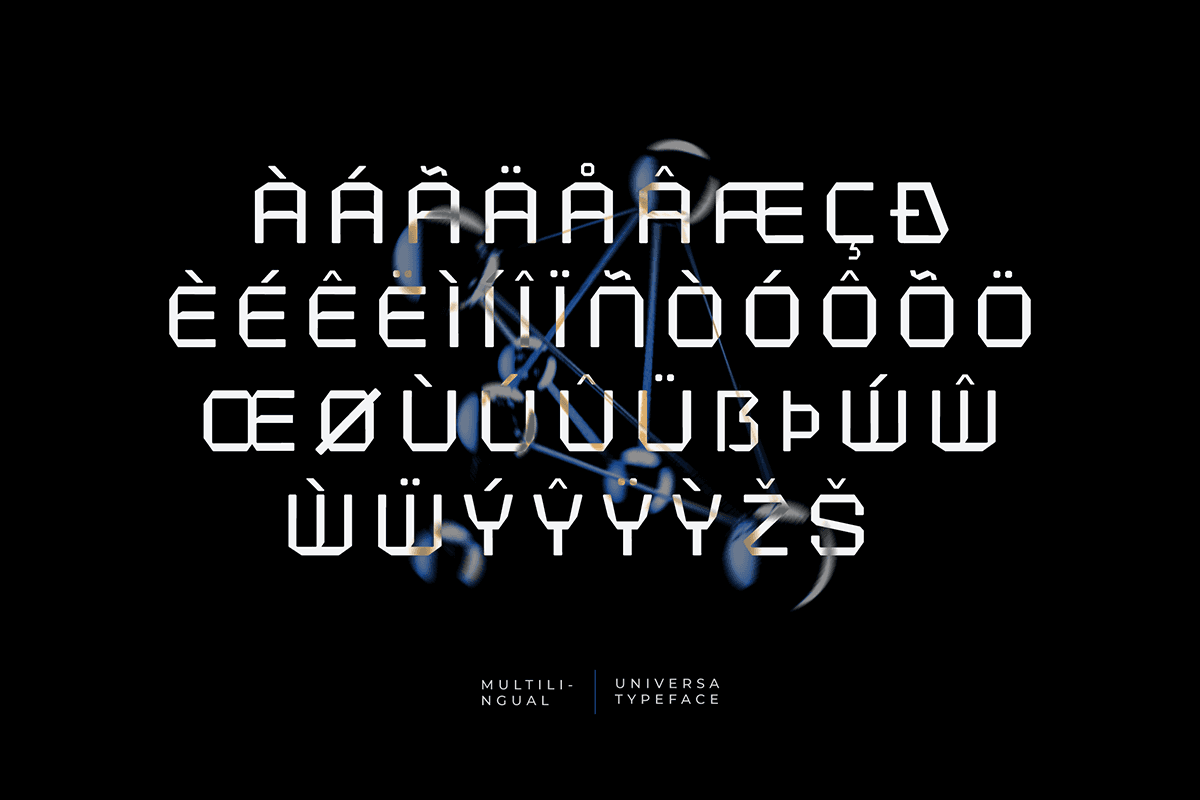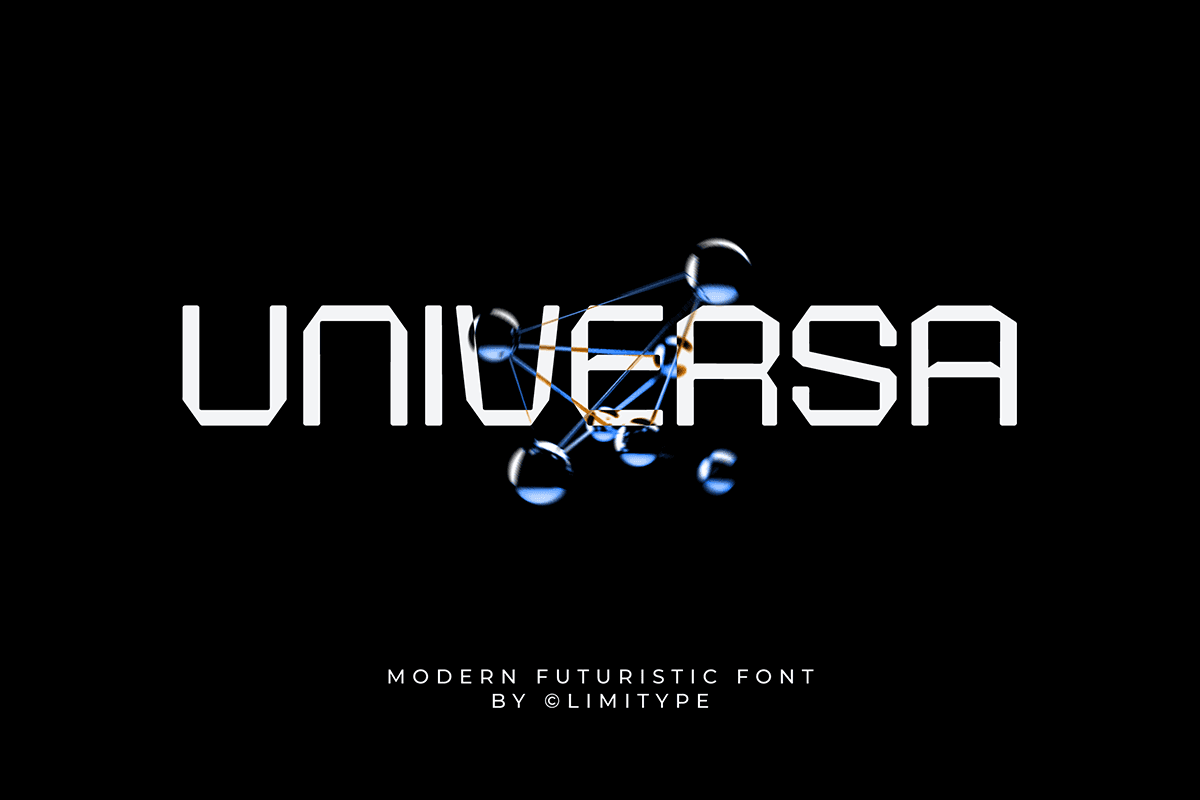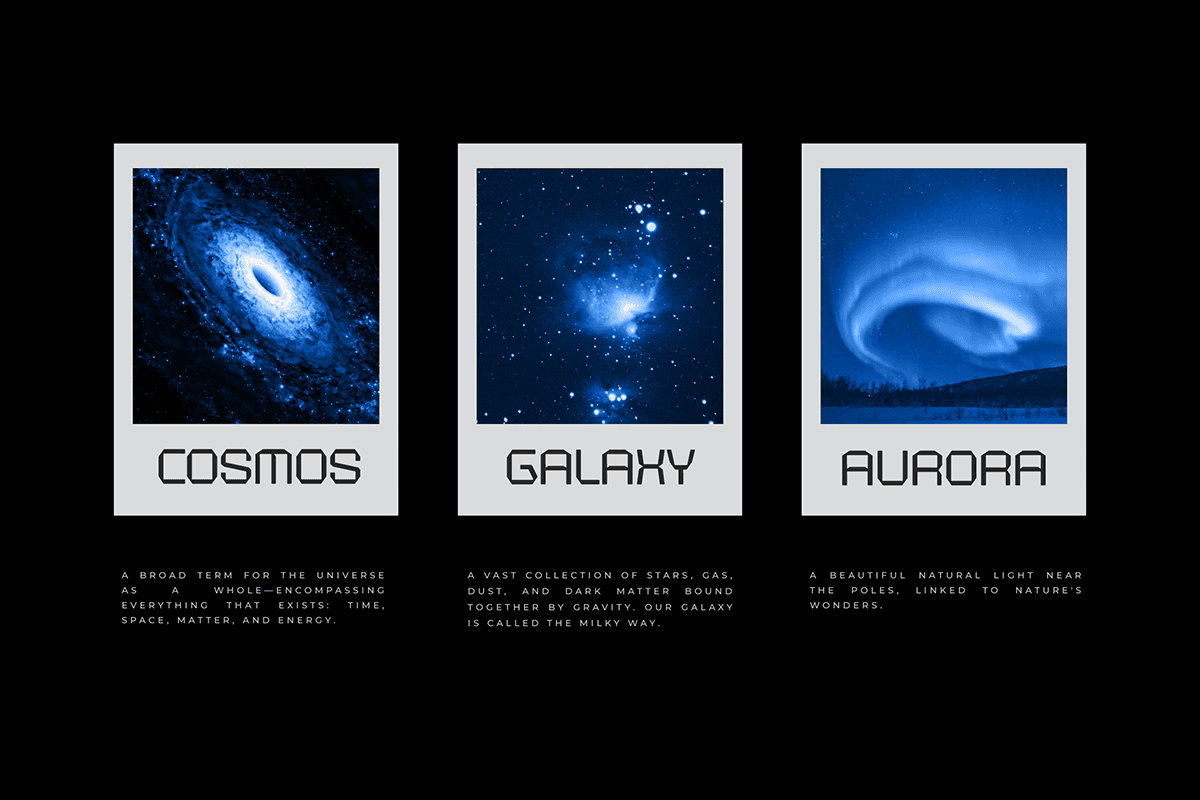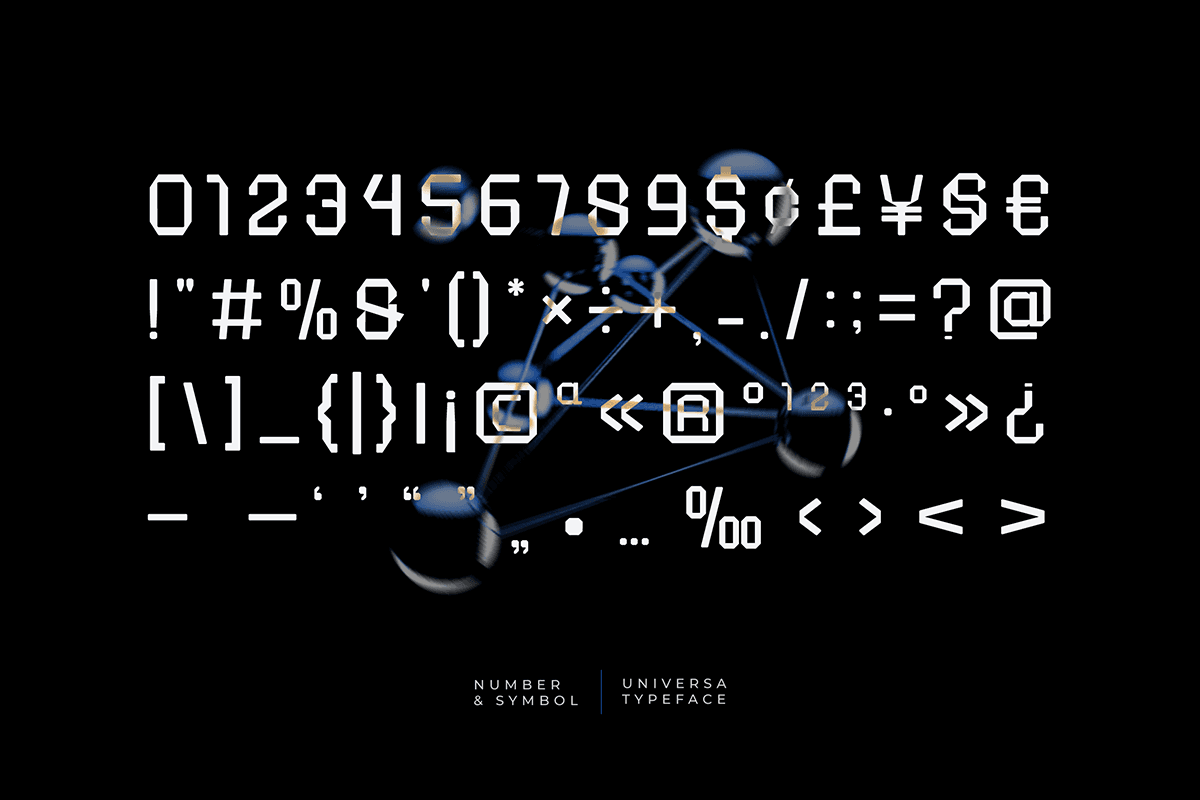
Universa – Futuristic Font is here! It is a display font with a unique futuristic impression, offering a distinctive and eye-catching design. It is the perfect choice for projects that require a modern look, especially in fields such as technology, astronomy, automotive, and more. Its sleek, contemporary style ensures that it stands out in any design, providing a clean and cutting-edge appearance that aligns with the latest trends and innovations.Thanks to Limitype for sharing with us this exquisite font! However, this Universa – Futuristic Font is only a demo version available for personal use. So, if you want to access more its full features and license, go get the premium version as well!